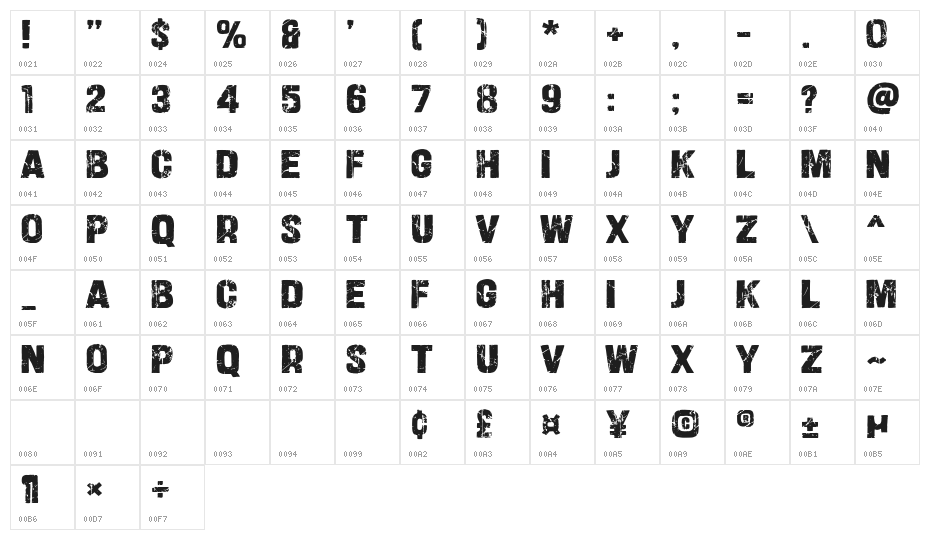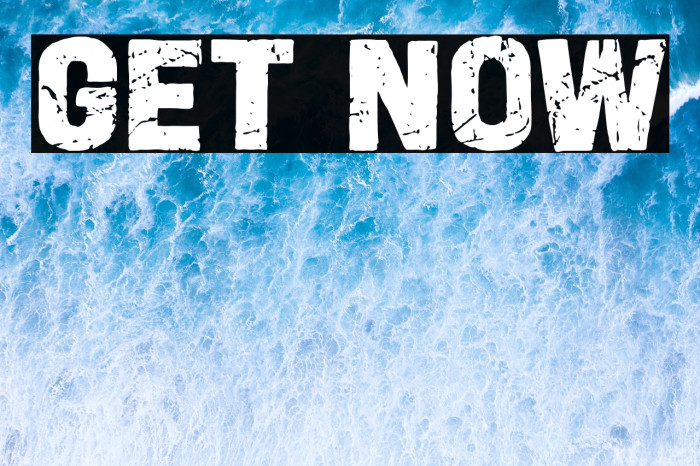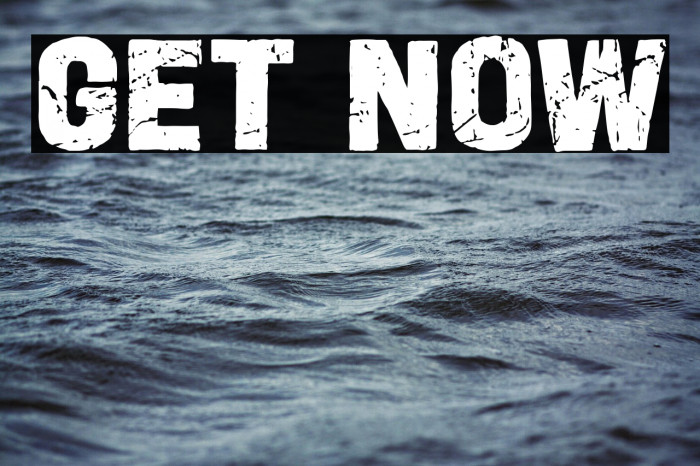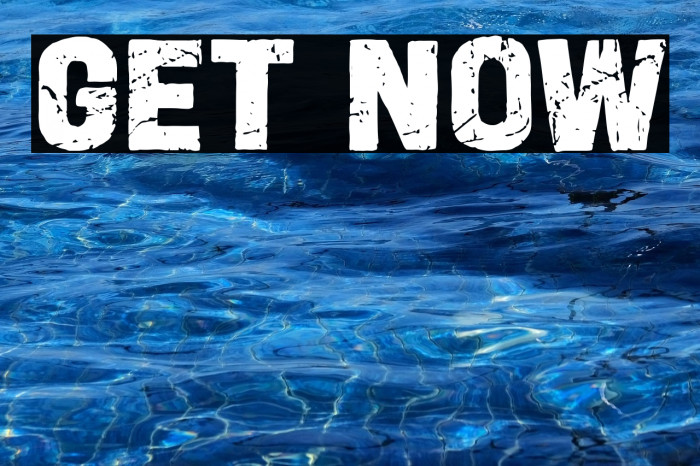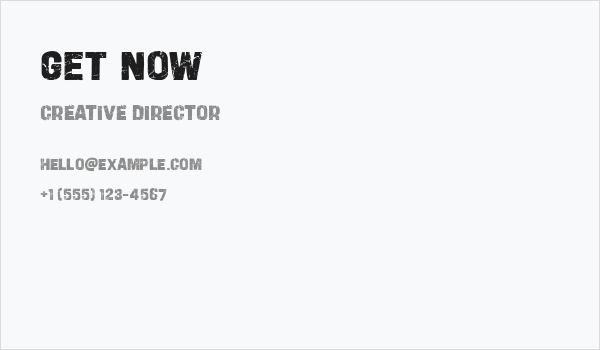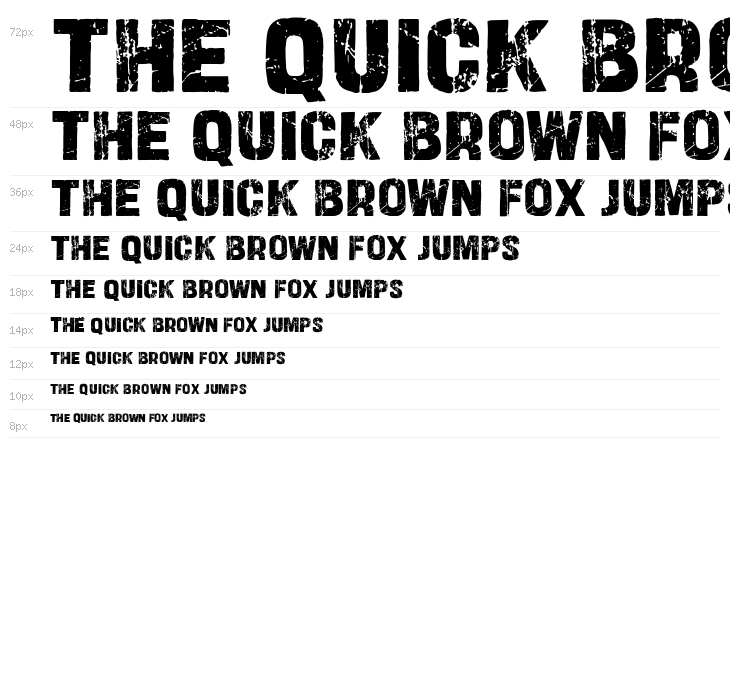
Get Now Font
Get Now Description
This font features a bold, distressed style with a textured appearance that gives it a rugged and worn look. The characters are uppercase and have a blocky, robust structure, making them highly visible and impactful. The distressed effect is consistent across all characters, adding a sense of age and weathering. This style is reminiscent of vintage or industrial design, often used to convey a sense of toughness or authenticity. The font's boldness ensures it stands out, while the distressed details add character and uniqueness.
| Overall Style | Vintage |
| Proposed Projects | Ideal for projects requiring a strong, vintage aesthetic, such as posters, album covers, branding for outdoor or adventure-themed products, and signage. |